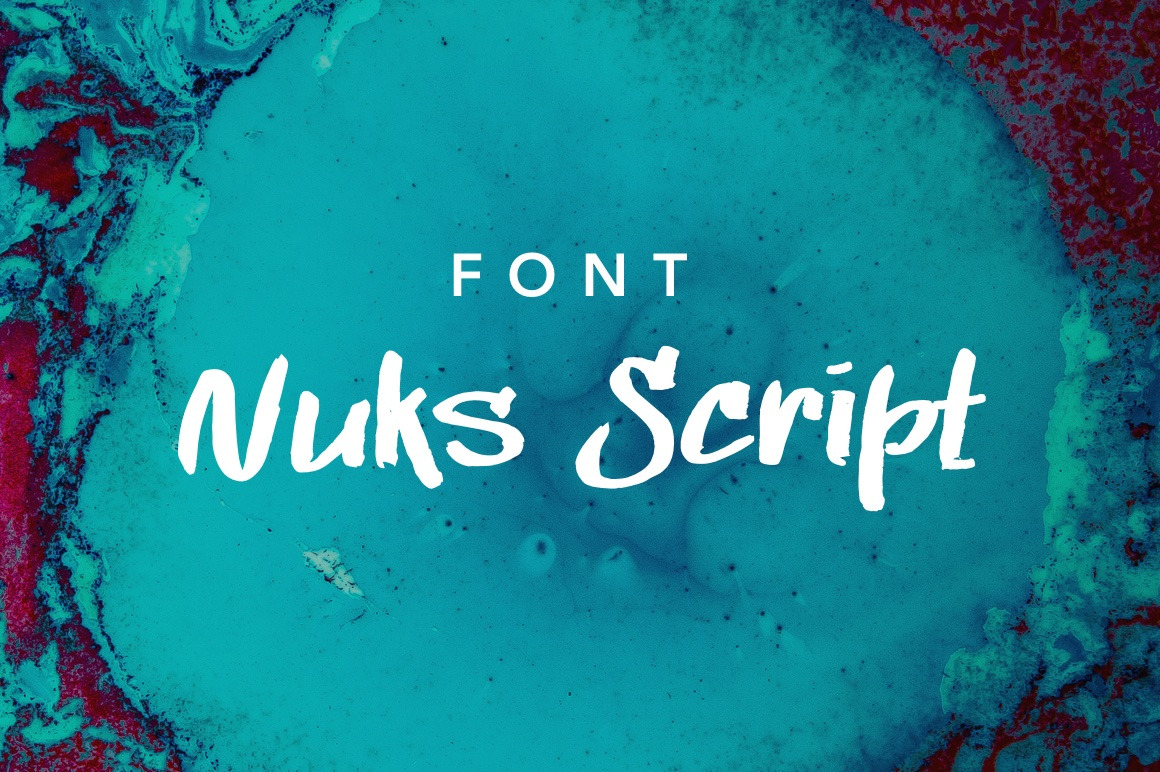
Nuks Handwritten Font Script Brush
Nuks Handwritten Font
is perfect for branding projects, posters, homeware designs, product packaging - or simply as a stylish text overlay to any background image. A handwritten script font containing upper and lowercase characters, numerals and a large range of punctuation.